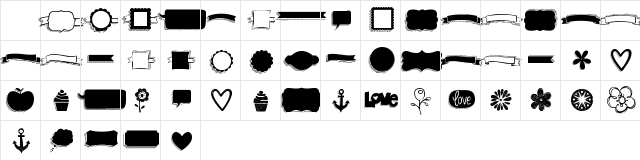
Complete KG Flavor And Frames Six Regular glyph index. Displaying only characters natively supported by KG Flavor And Frames Six Regular font.
KG Flavor And Frames Six is a composed and adaptable typeface that performs quietly and consistently across a wide range of design contexts.